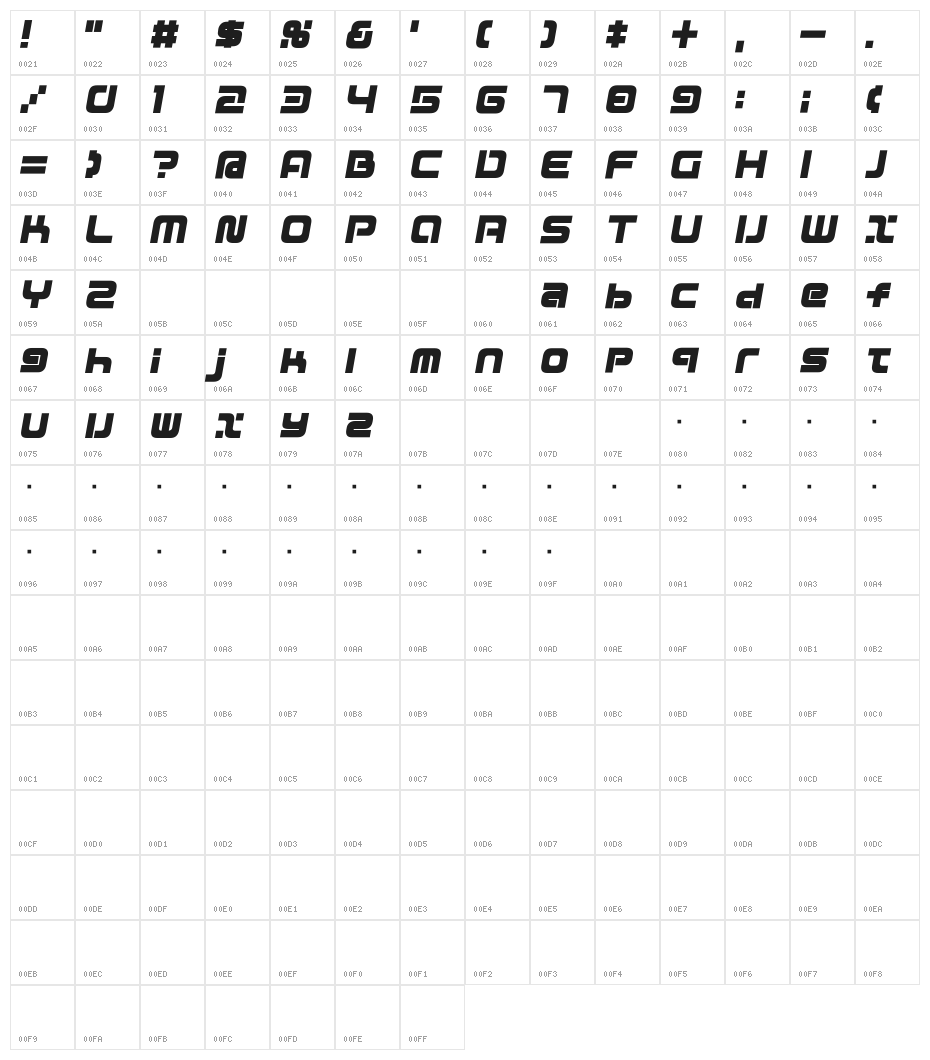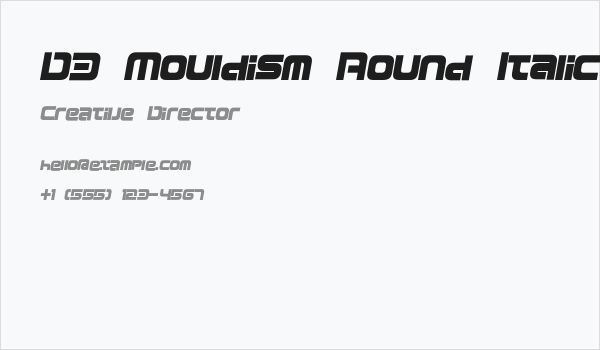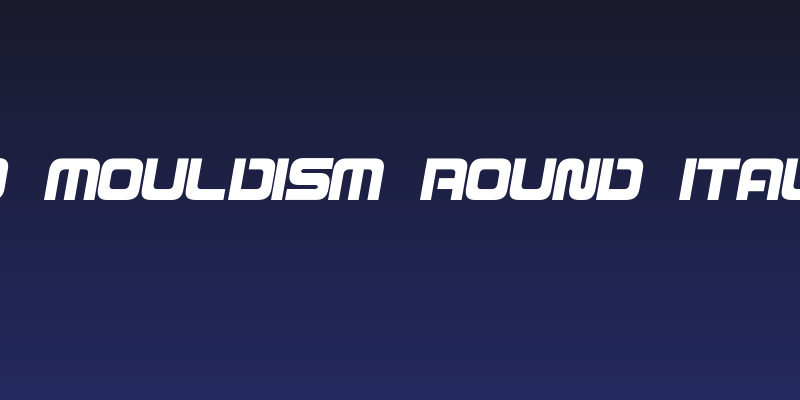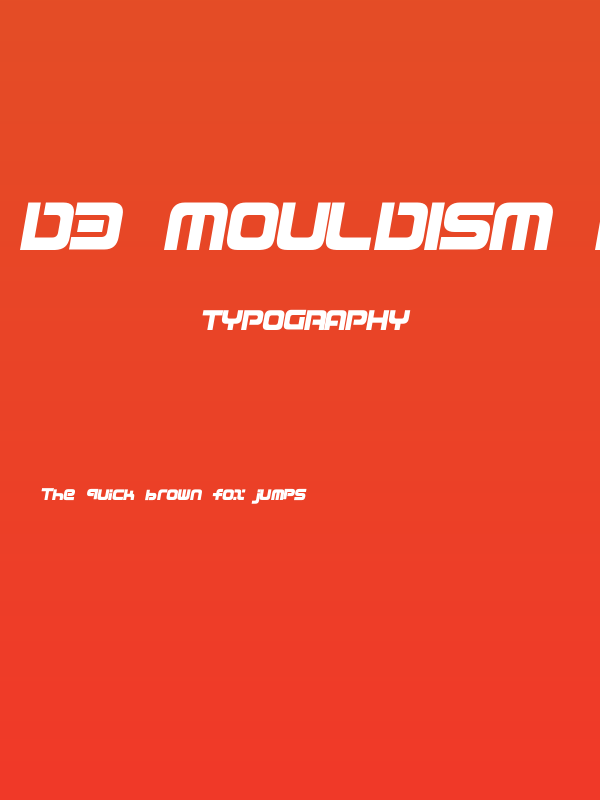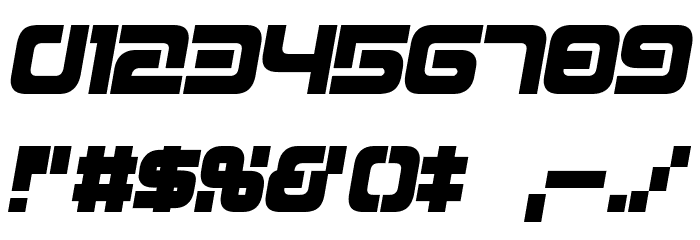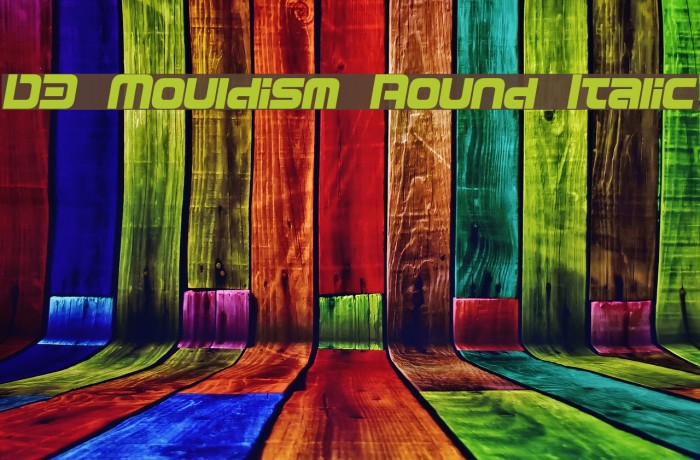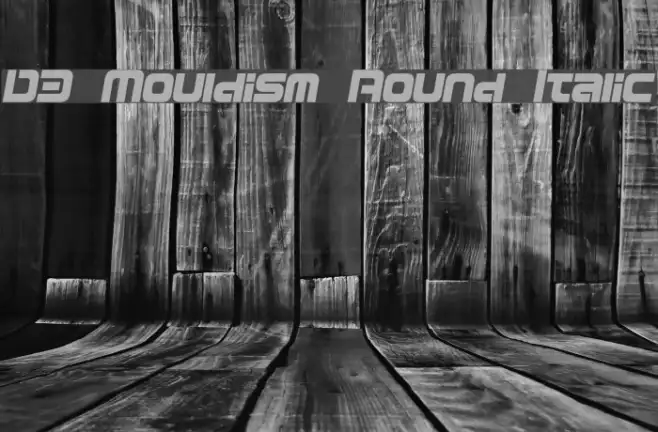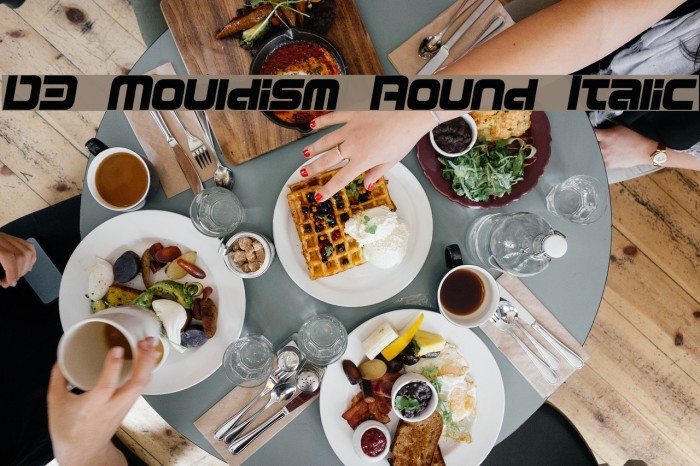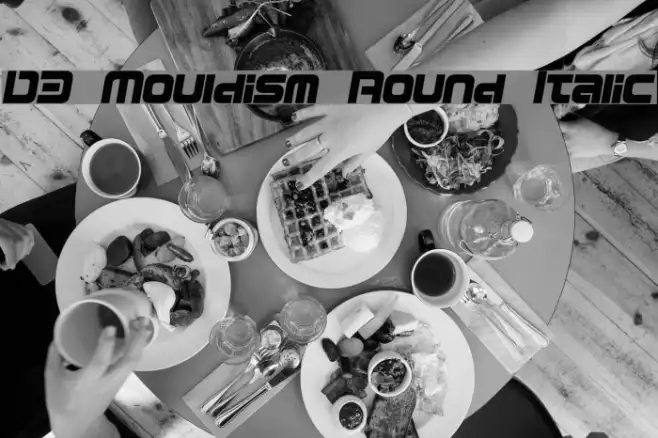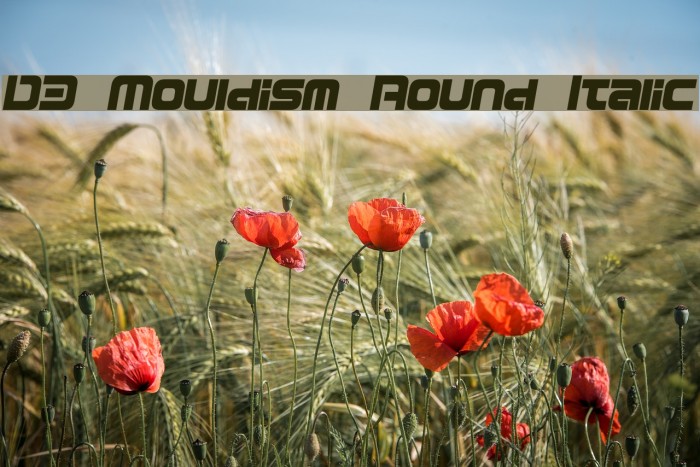
D3 Mouldism Round Italic Font
D3 Mouldism Round Italic Description
This font features a bold and futuristic design with rounded edges and a distinct italic slant. The characters are wide and have a geometric structure, giving them a modern and tech-inspired appearance. The uppercase and lowercase letters maintain a consistent style, with a strong emphasis on horizontal lines and curves. The numbers and special characters are designed to match the overall aesthetic, providing a cohesive look across all elements. The font's unique style makes it suitable for projects that require a contemporary and dynamic feel.
| Categories | Futuristic |
| Width | Expanded |
| Proposed Projects | Ideal for tech branding, video game titles, sci-fi posters, and modern advertising. |